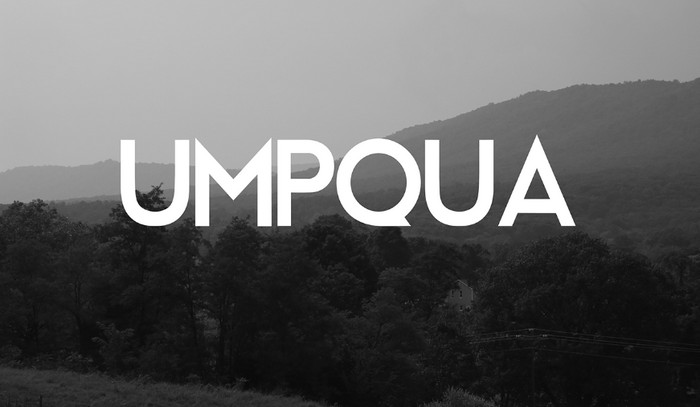
Umpqua Typeface
Today is very special, I want to share the joy to you. I was very happy to see a very special typeface, I was talking and sharing with you Umpqua Typeface! Umpqua designed and shared by Stephen French. It is a font family, with 3 different styles. Umpqua Font is a beautiful sans serif that makes logo creation easy! Umpqua is a geometric font full of grit and character. It’s a typeface perfect for logos, posters, packaging, headlines, and more.